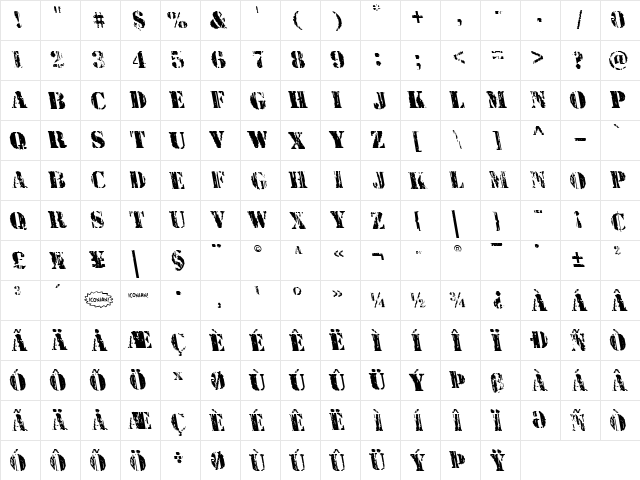
Wetworks Leftalic Italic Font Preview
Wetworks Leftalic Italic
Design Context for Wetworks Leftalic Typeface
Wetworks Leftalic is a composed and adaptable typeface that performs quietly and consistently across a wide range of design contexts. The slanted form adds forward momentum and visual energy.